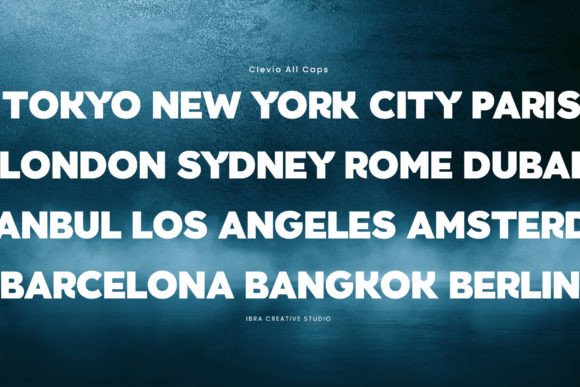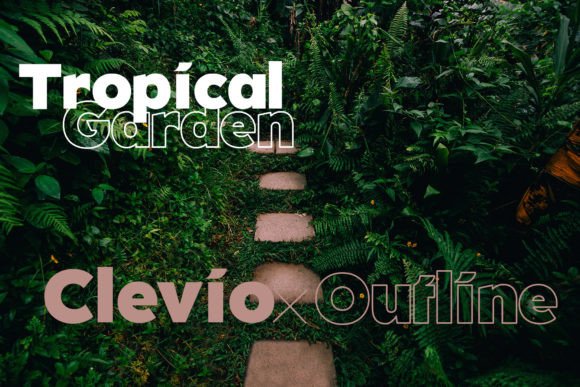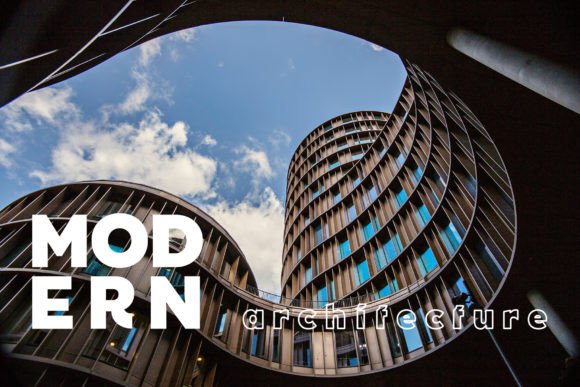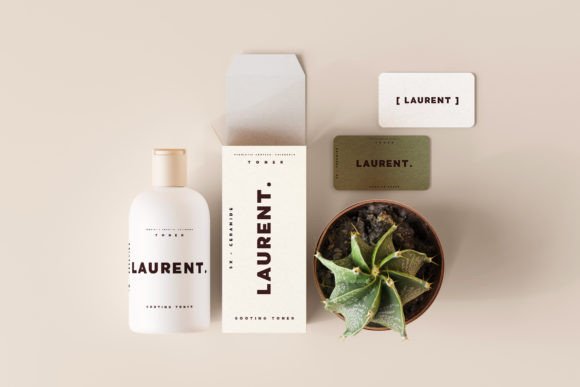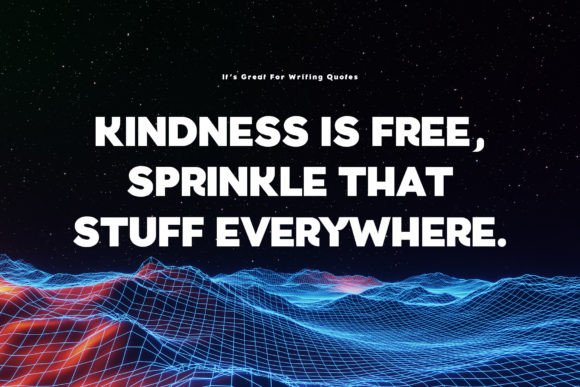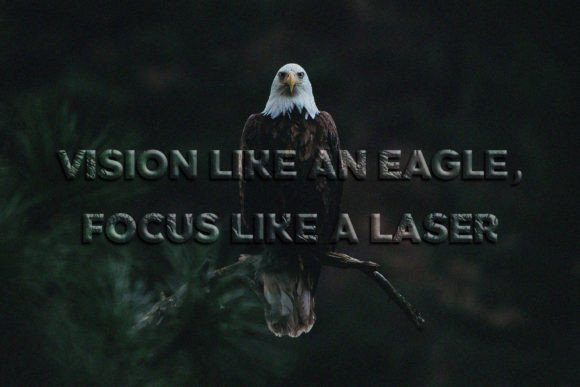
The Perfect Balance: Unveiling the Clevio Font
Have you ever found yourself staring at a blank page, searching for the perfect font to bring your design to life? The moment of creative clarity is a thrilling one, and it’s exactly what inspired the creation of the Clevio Font. This captivating sans-serif typeface is designed to strike the perfect balance between modern elegance and timeless sophistication.
With its clean, unadorned lines and refined simplicity, the Clevio Font is the ideal choice for designers seeking a versatile font that can elevate a wide range of design applications. Whether you’re working on a sleek corporate website or a creative brochure, this font is sure to make a lasting impression. By incorporating the Clevio Font into your design repertoire, you’ll be able to tap into its unique aesthetic and take your projects to the next level.
Clevio Font Key Features
- Unique Characteristics: The font features a unique blend of modern and vintage elements, with subtle flair and elegance, making it perfect for creative and professional designs.
- Font Styles: Clevio Font includes 6 different font styles: Regular, Bold, Italic, Bold Italic, Outline, and Shadow, offering versatility and flexibility in design applications.
Clevio Font Review
Overall, I was quite excited to dive into the Clevio font. Here’s what I think:
- Clevio has a very modern and sleek design, which makes it perfect for trendy and tech-savvy brands.
- The font is highly legible, even at smaller font sizes, which is a must-have for any digital project.
- The character set is quite comprehensive, covering a wide range of languages and special characters.
- The font feels a bit generic and doesn’t stand out from other modern sans-serif fonts.
- The bold and italic versions of the font feel a bit too similar to the regular version, which can make it hard to use them effectively.
- The font doesn’t feel particularly suited for traditional or classic brands, as it feels a bit too edgy.
Overall, Clevio is a solid font that works well in many situations, but it’s not particularly memorable or unique. It’s a good choice for brands that want a modern and trendy look, but it may not be the best fit for everyone.
Tips for Getting the Most Out of Clevio Font
Here are some tips for getting the most out of Clevio Font:
- Pair Clevio Font with other fonts to create a visually appealing design.
- Use Clevio Font in combination with bold and italic styles to add emphasis.
Clevio Font is commonly used in:
- Graphic design and branding
- Typography and font design
Alternatives to Clevio Font
Montserrat is a sans-serif font designed by Julieta Ulanovsky. It’s ideal for use in digital products, logos, and headings. Montserrat is a more geometric and modern font compared to Clevio Font, which has a more rounded and friendly feel.
Use Montserrat when you need a clean, urban, and modern look.
Lato is a sans-serif font designed by Łukasz Dziedzic. It’s a versatile font suitable for body text, headings, and titles. Lato has a similar feel to Clevio Font but with a more subtle and elegant touch.
Use Lato when you need a clean and elegant font for your design.
Open Sans is a sans-serif font designed by Steve Matteson. It’s a highly readable font ideal for body text, headings, and titles. Open Sans is a more neutral and straightforward font compared to Clevio Font, which has a more distinctive personality.
Use Open Sans when you need a clean and highly readable font for your design.
4. Poppins
Poppins is a sans-serif font designed by Indian Type Foundry. It’s a modern and elegant font suitable for digital products, logos, and headings. Poppins has a more rounded and friendly feel compared to Clevio Font, which has a more geometric and modern touch.